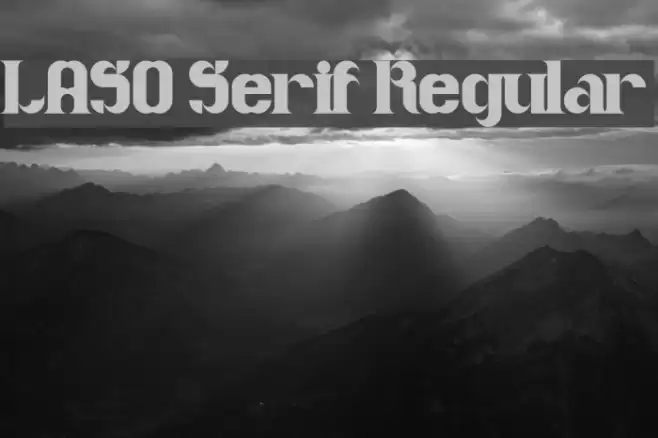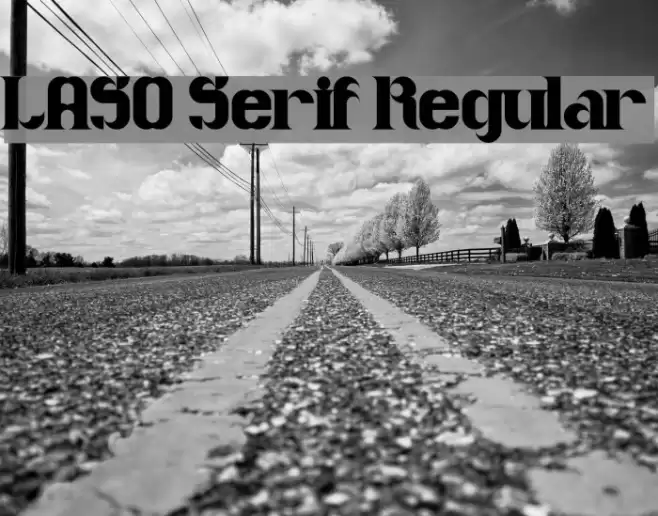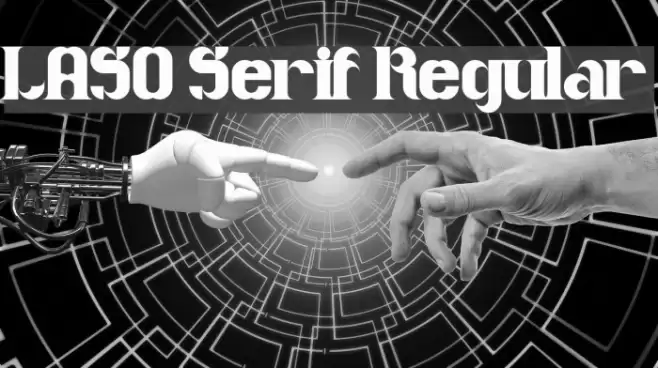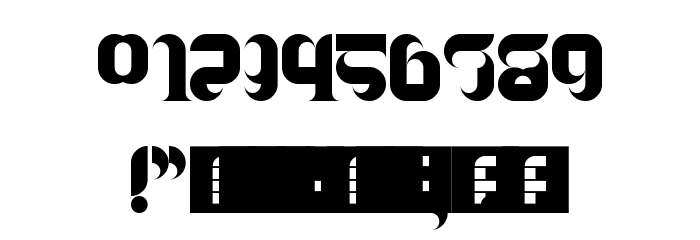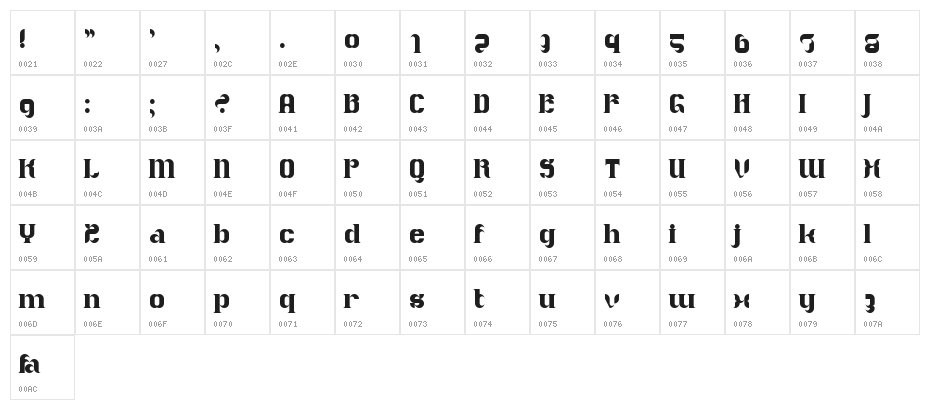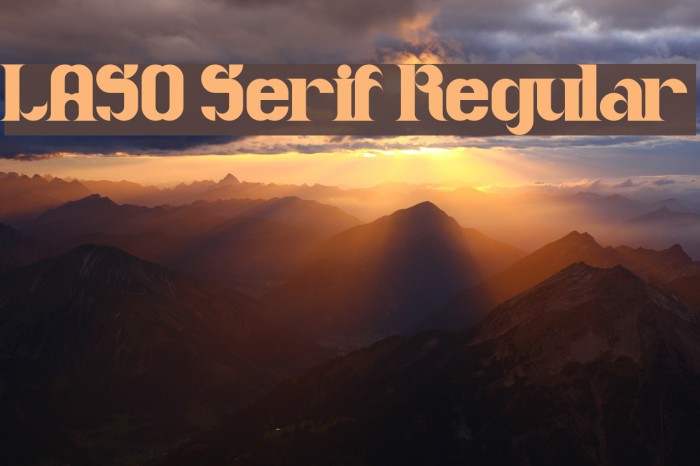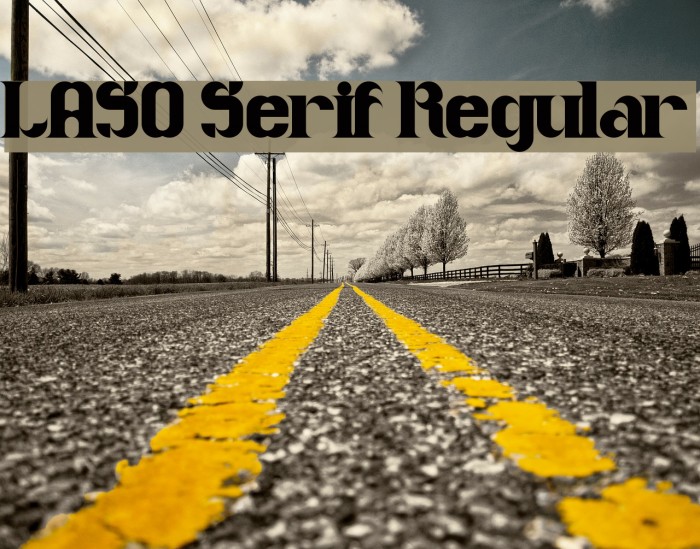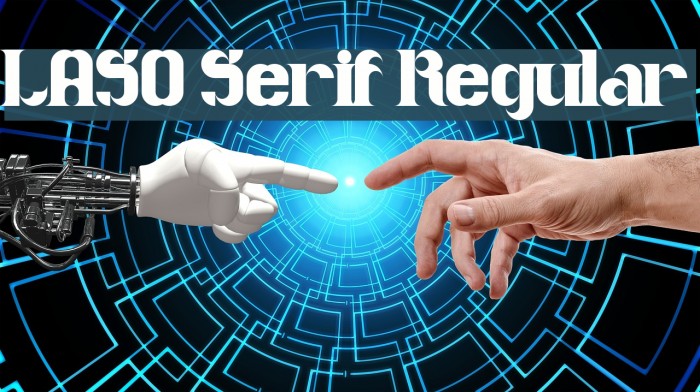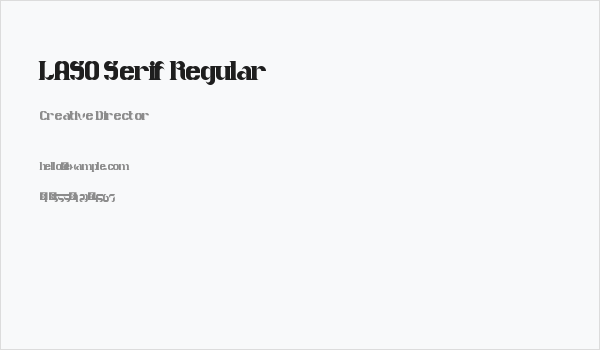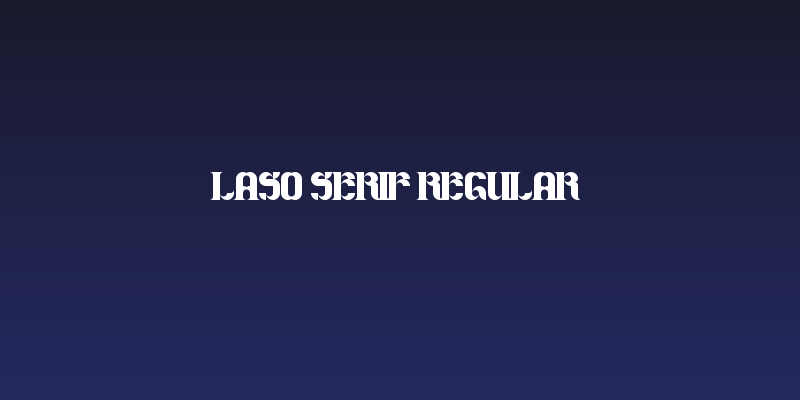
LASO Serif Regular Font
LASO Serif Regular Description
This font exhibits a bold and striking design, characterized by its thick, block-like serifs and high contrast between thick and thin strokes. The uppercase letters are particularly prominent, with a unique blend of traditional serif elements and modern stylistic twists. The lowercase letters maintain a consistent style, offering a cohesive look across different cases. The numbers are equally bold, ensuring readability while maintaining the decorative flair of the font. Special characters are designed with the same attention to detail, making them stand out while remaining harmonious with the rest of the typeface. This font is ideal for making a strong visual impact, combining classic serif elegance with a contemporary edge.
A bold, high-contrast serif font with a modern twist from Uncategorized fonts.